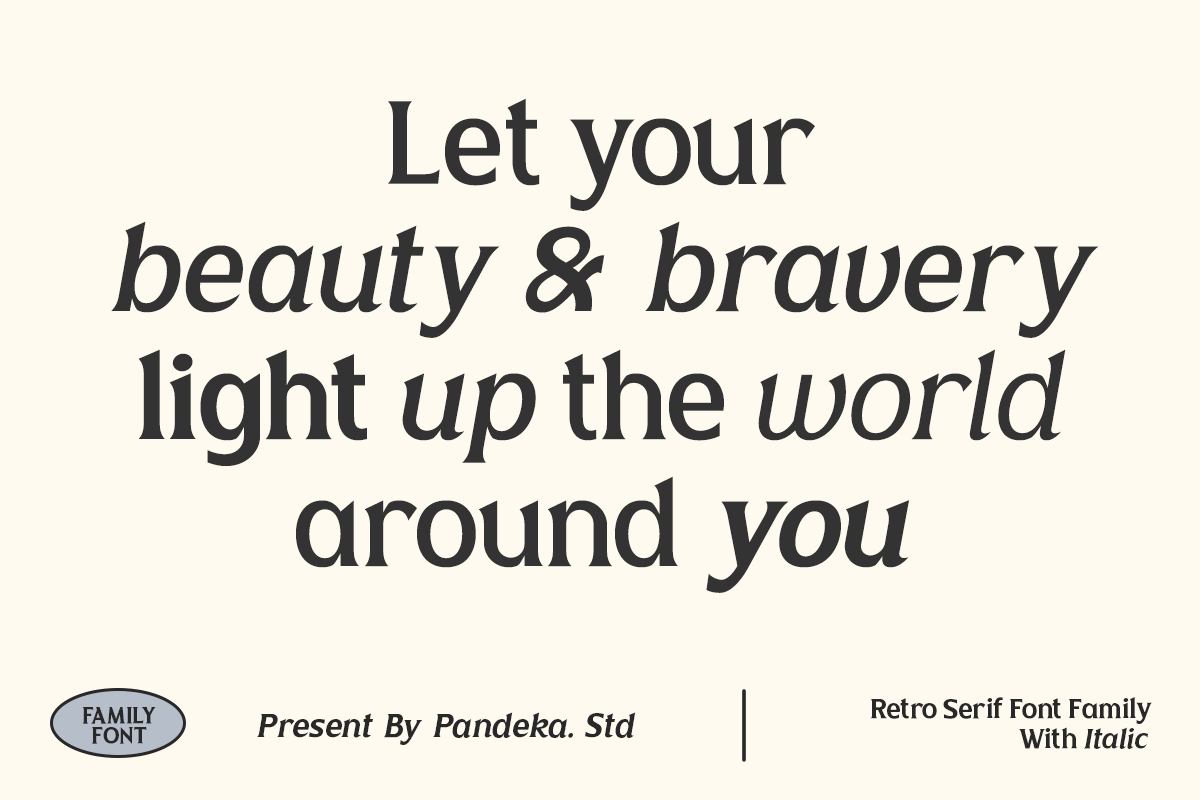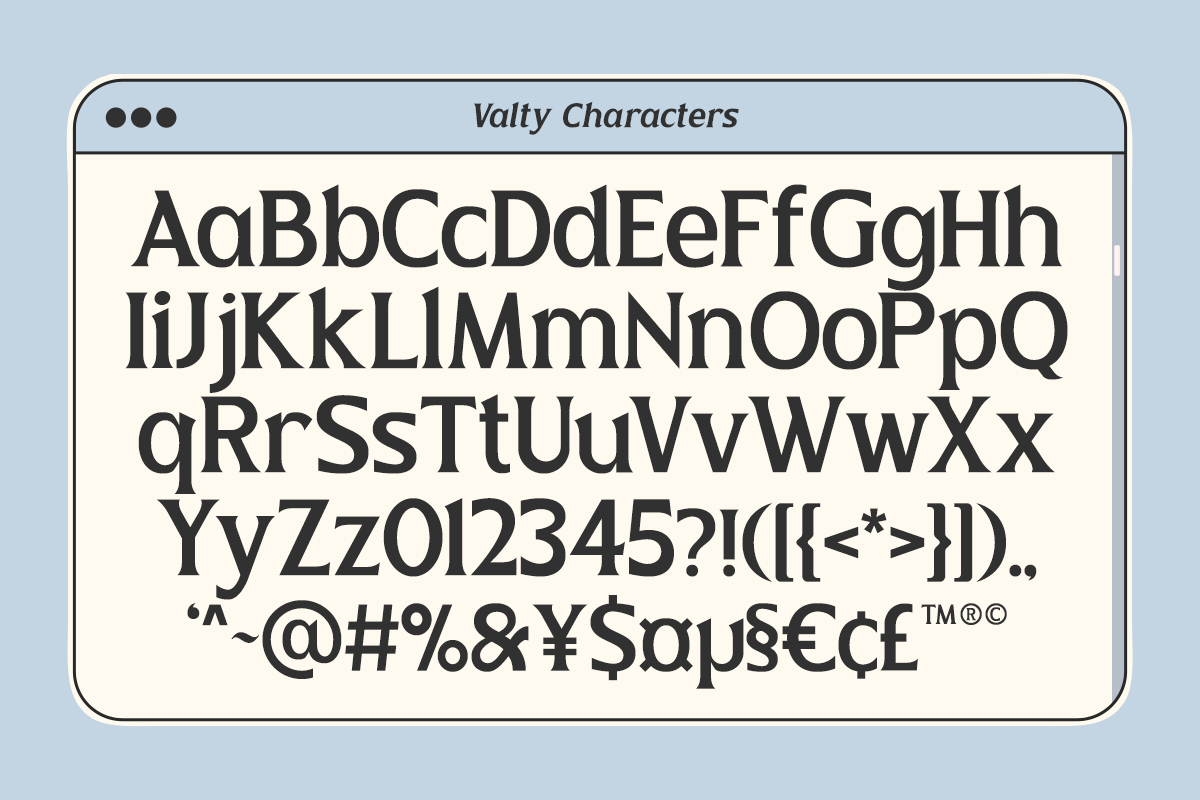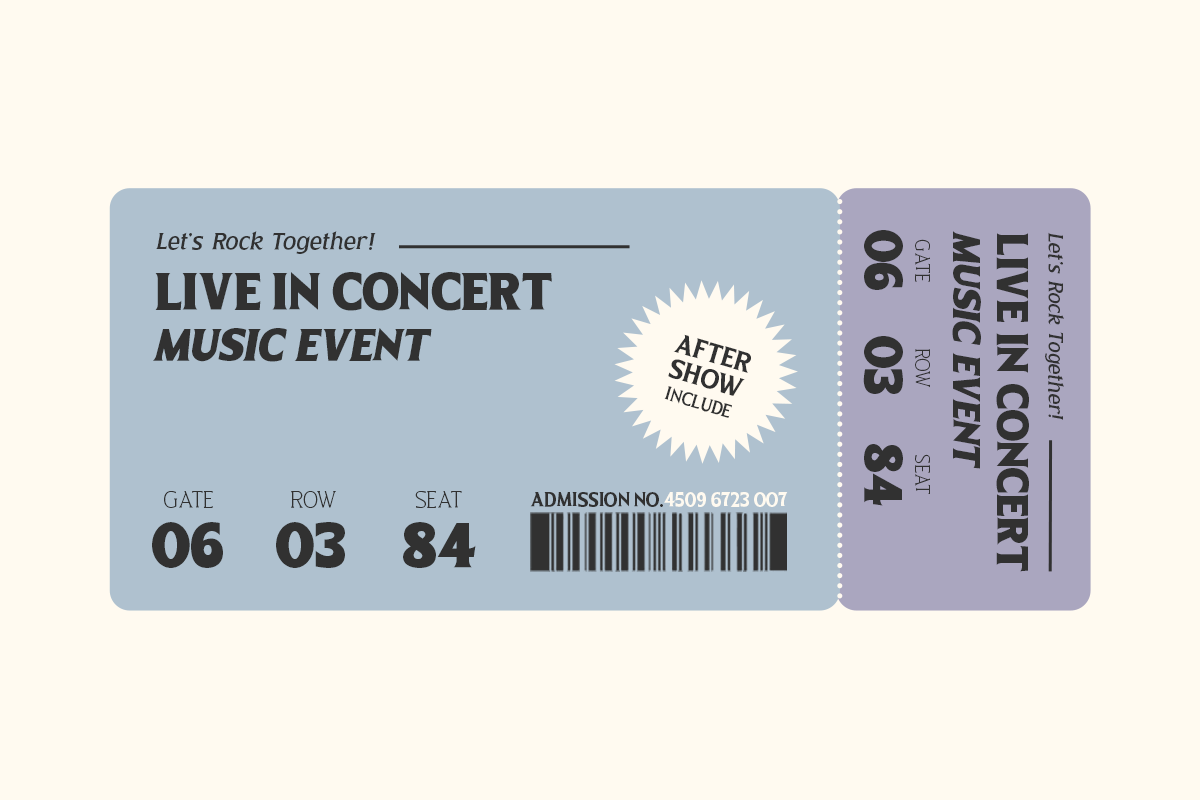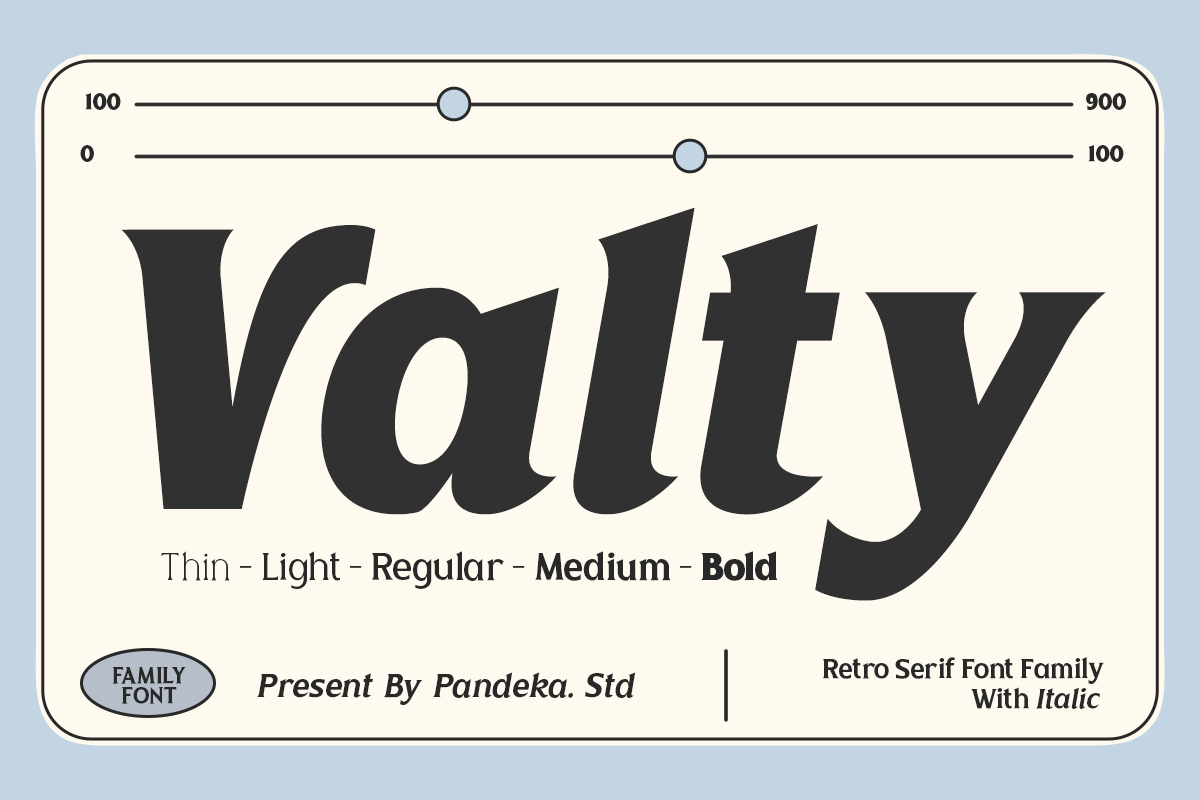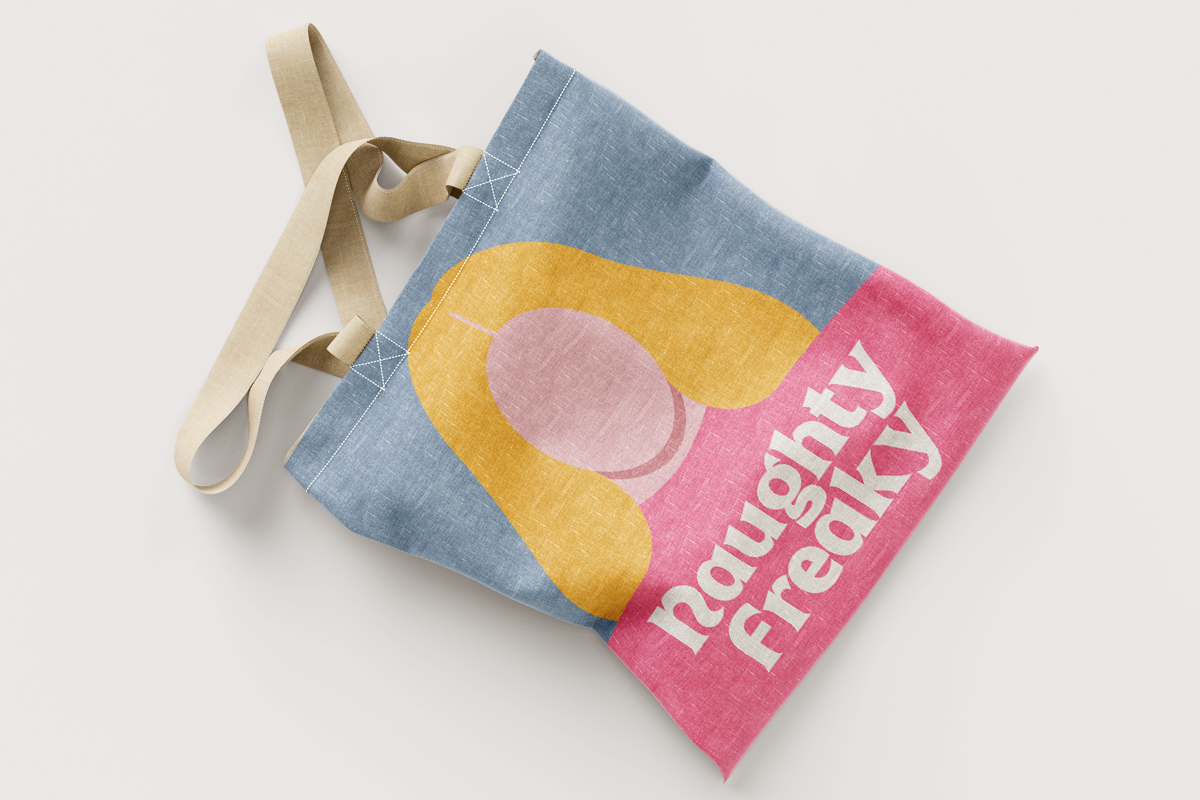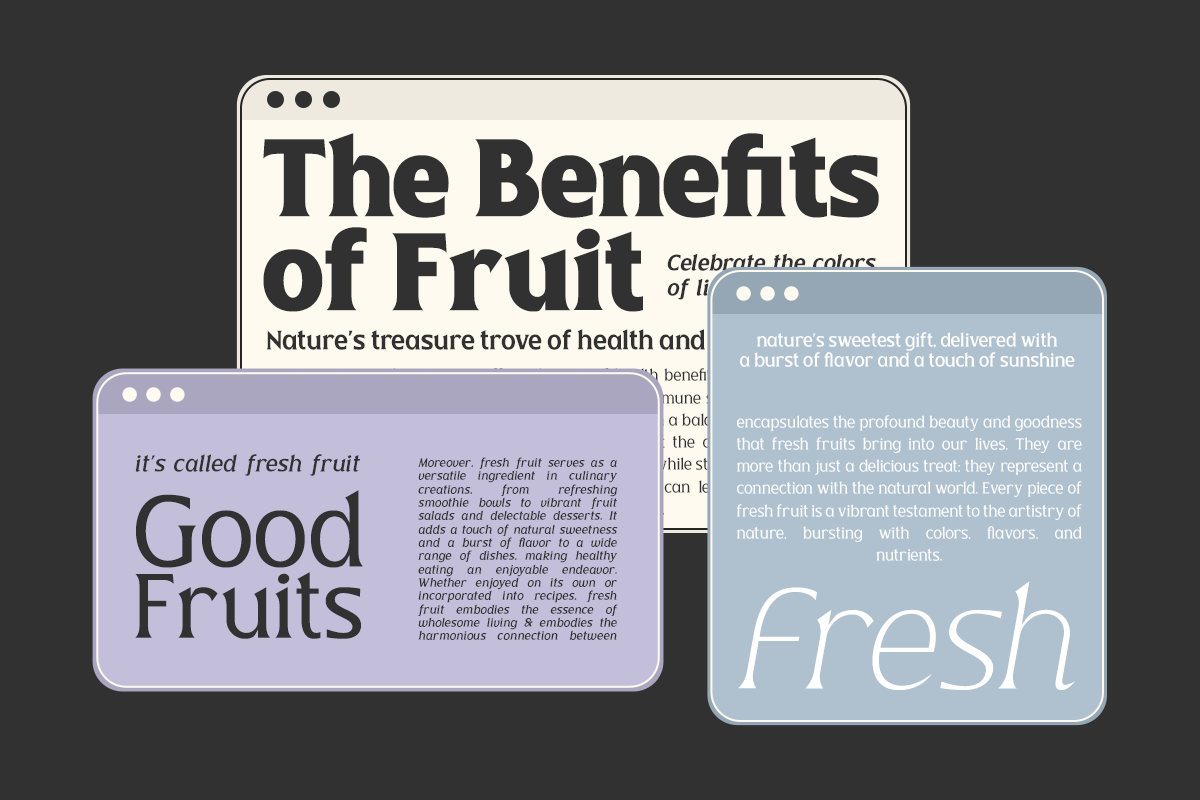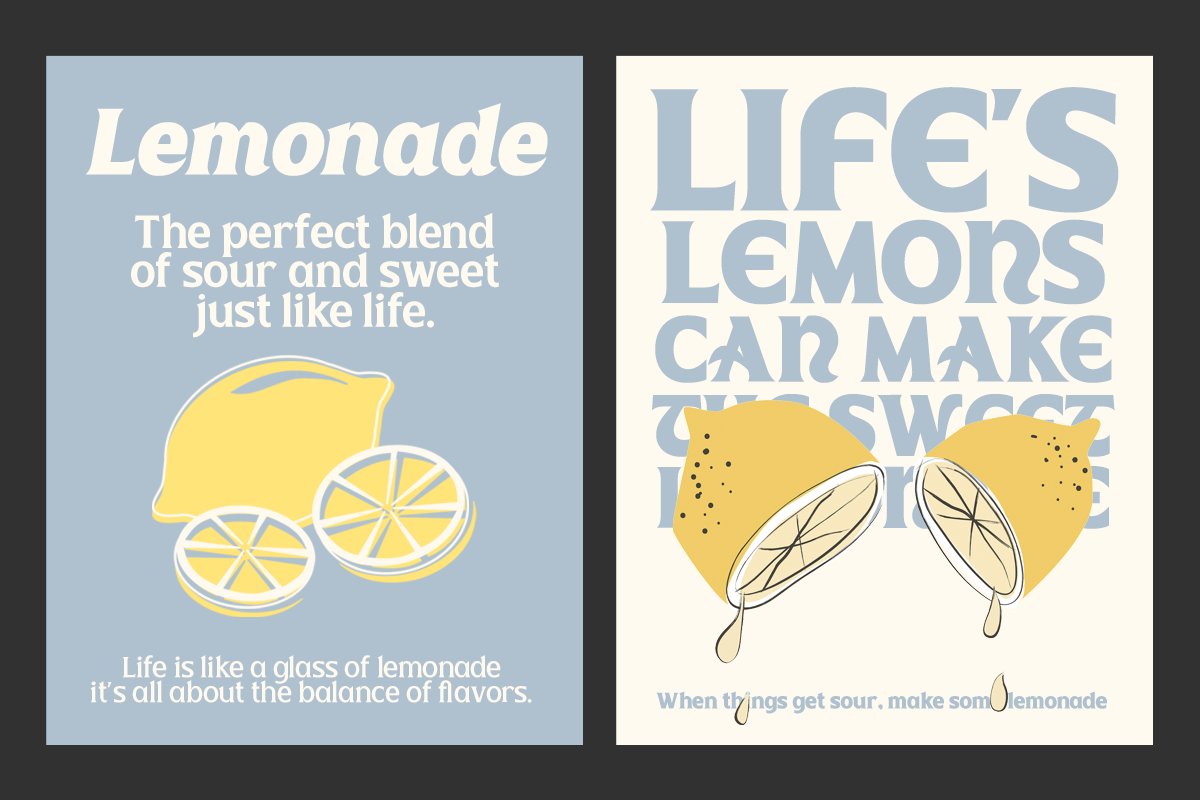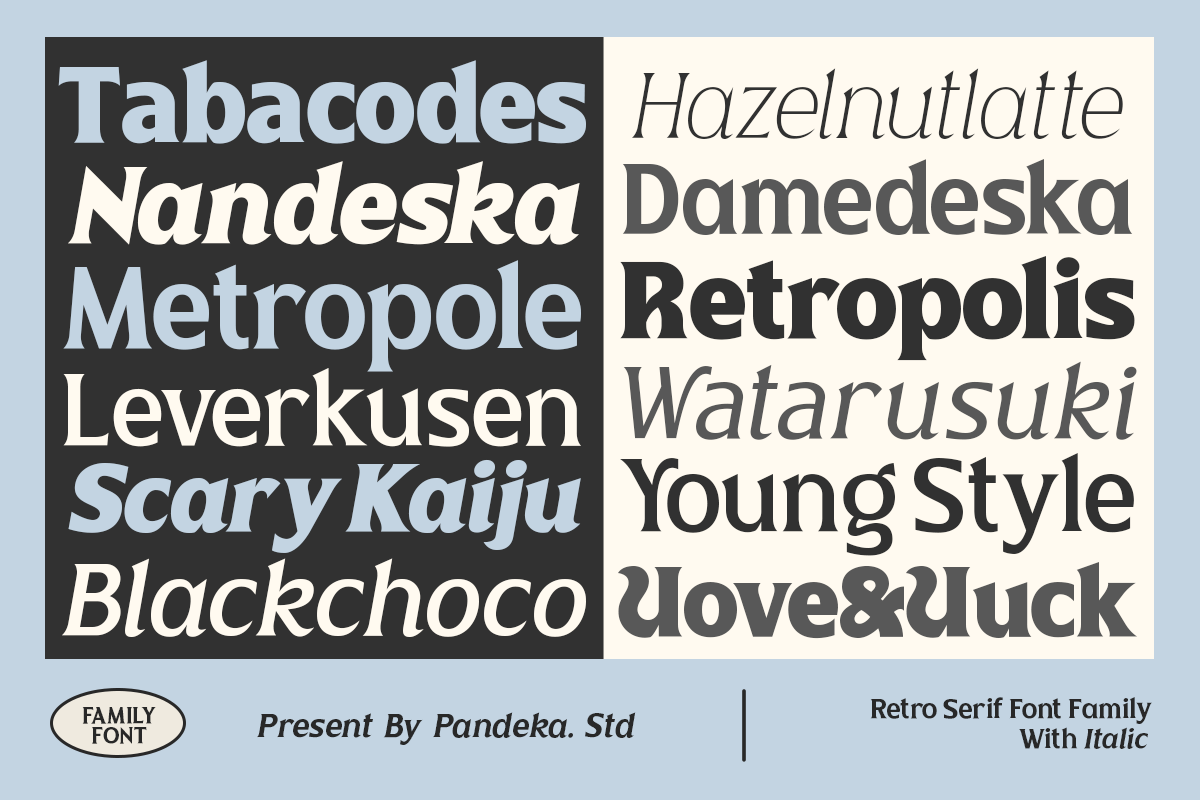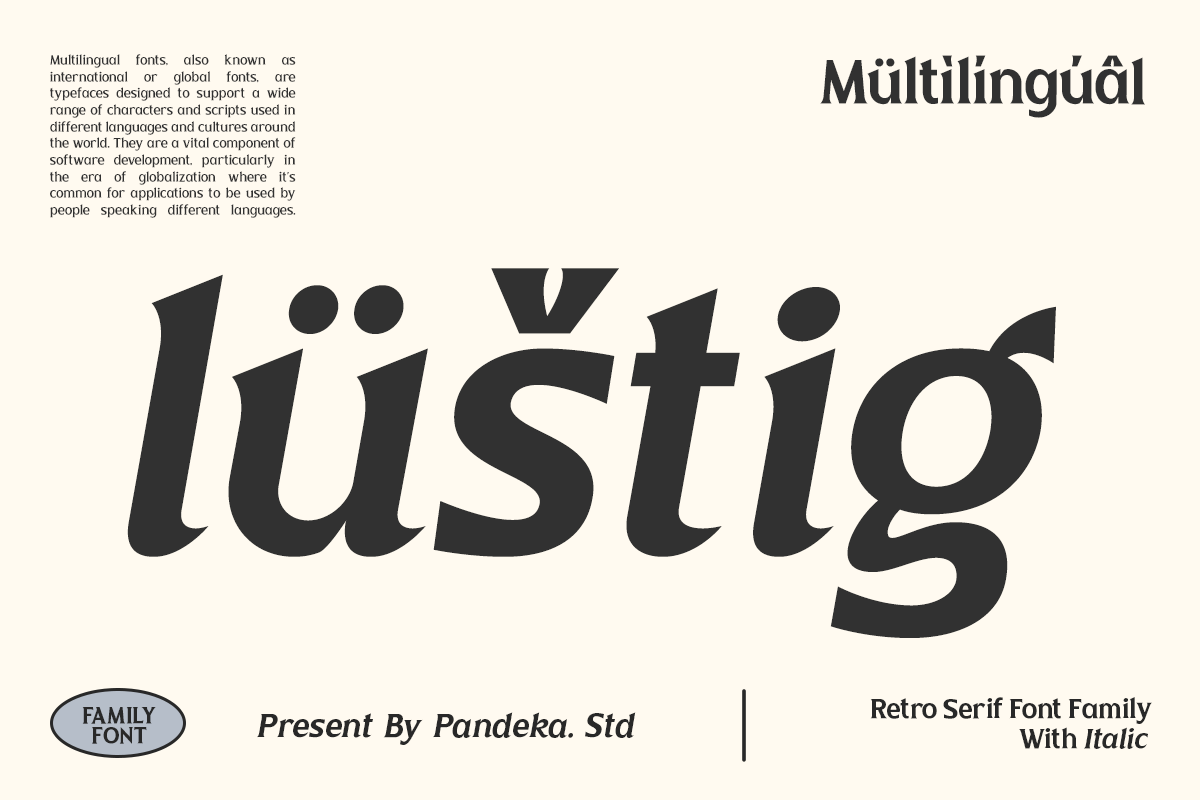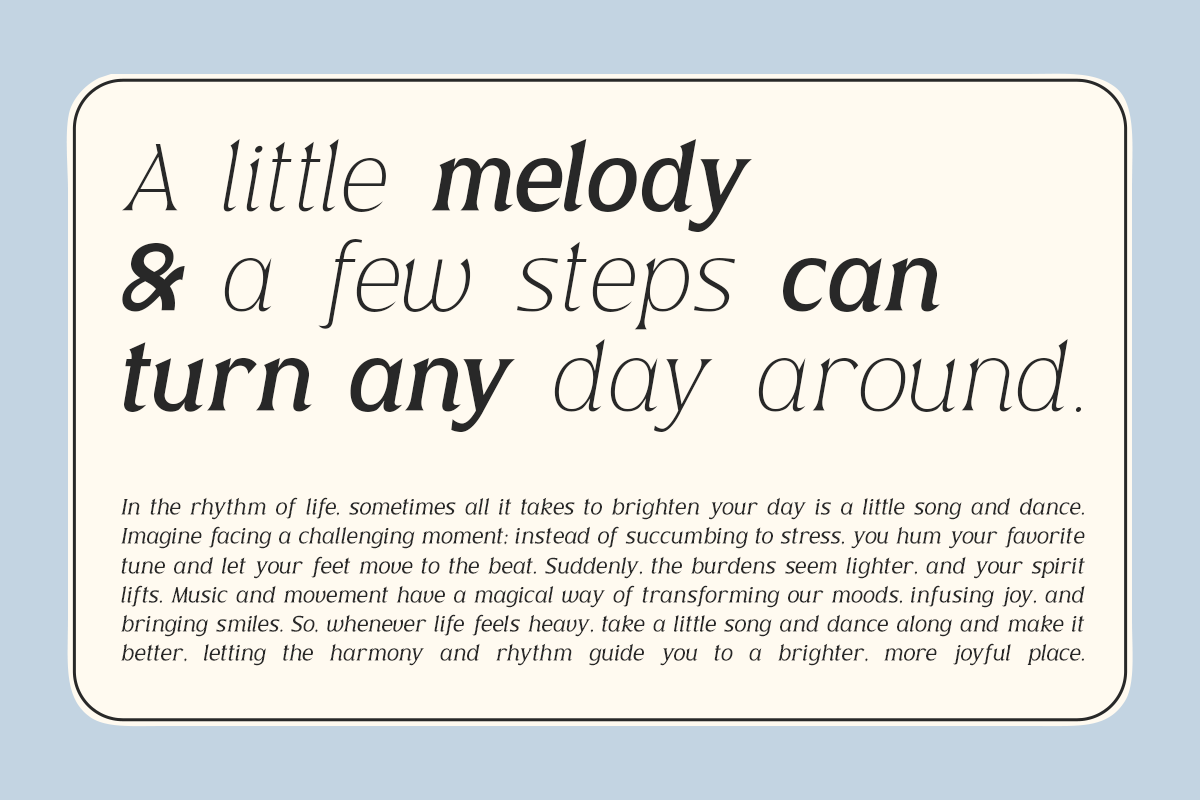
Valty - Variable Classic Typeface
Introducing Valty – a vibrant modern serif font that captures the essence of the 80s and 90s. Perfect for headlines, posters, logos, and any design needing a touch of vintage charm.
Valty offers five style families: Thin, Light, Regular, Medium, and Bold. It also features both Regular and Italic styles, with bold letterforms and playful curves.
Valty excels in delivering an authentic, eye-catching typography experience. Elevate your design projects with Valty – the ultimate retro serif font blending vintage allure with modern versatility.
- Uppercase & Lowecase Letters
- 10 Fonts Family with Regular and Italic version
- Unique Letterforms